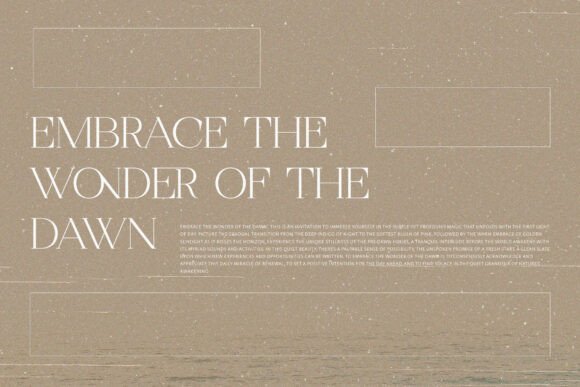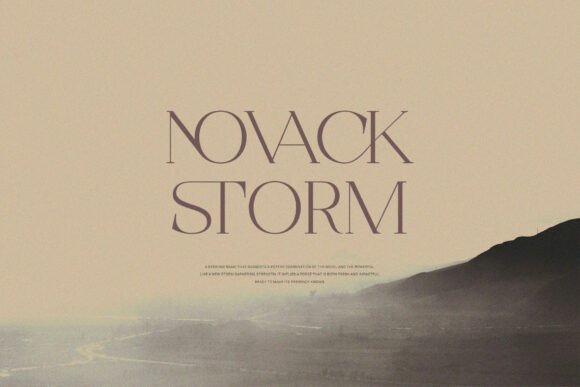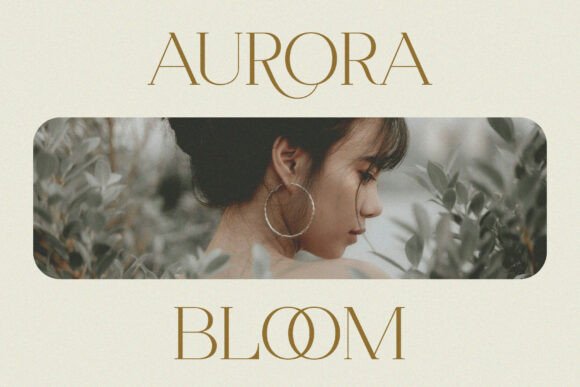
Introduction to Rostedik Font
As a designer, have you ever been on the hunt for the perfect font to elevate your creative project? You know, that one font that commands attention, exudes sophistication, and leaves a lasting impression. For me, that font is the Rostedik Font – a refined modern display serif that has become my go-to choice for high-end designs.
With its bold presence and sleek curves, the Rostedik Font is more than just a design element – it’s a statement piece. Its high contrast strokes and stylish curves make it perfect for creating bold headlines, luxury branding, and editorial designs that demand distinction and style. Whether you’re working on a fashion campaign or a logo project, the Rostedik Font is a valuable resource that can take your design to the next level.
Key Features of Rostedik Font
- High-quality, unique design perfect for creative projects, with a transparent background allowing for seamless integration with various visuals.
- Comes in a single weight, with a standard character set, and is ideal for use in digital design, graphic design, and print media.
- Designed as a versatile design resource, suitable for a wide range of creative applications, from logos and branding to typography and layout.
- Supports a wide range of languages, including Latin, Cyrillic, and Greek alphabets, making it a great choice for international projects.
Honest Review: Rostedik Font
I recently stumbled upon the Rostedik Font while searching for a unique design resource for a creative project. After giving it a try, I’m excited to share my honest thoughts on this font.
What works well: ✨ The Rostedik Font boasts a high-quality design that’s perfect for any creative project. Its modern and sleek aesthetic makes it an excellent choice for designers who want to add a touch of sophistication to their work. I also appreciate the transparent background, which allows for seamless integration into any design.
What doesn’t work well: ⚠️ One of the limitations of the Rostedik Font is its limited character set. While it’s still a great font for general use, it may not be suitable for projects that require a wide range of characters.
Overall, I’m impressed with the Rostedik Font. It’s a great addition to any designer’s toolkit, and its unique aesthetic makes it stand out from the crowd. If you’re looking for a high-quality font for your next creative project, I’d definitely recommend giving the Rostedik Font a try.
Tips for Getting the Most Out of Rostedik Font
Use Rostedik Font in your creative project to add a unique and stylish touch. Experiment with different font sizes, colors, and styles to create a visually appealing design. Consider combining Rostedik Font with other design resources like images, vectors, or free downloads to create a high-quality design.
Rostedik Font is perfect for use in social media graphics, blog posts, and presentations. It’s also great for use in business cards, flyers, and brochures. With its high-quality design and transparent background, Rostedik Font is a versatile design resource that can be used in a variety of creative projects.